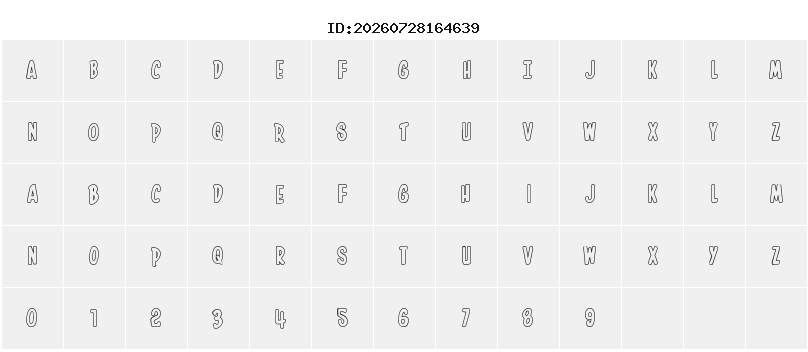
In-House Edition Outline Preview
• Font Name: In-House Edition Outline
• Full Font Name: In-House Edition Outline
About In-House Edition Outline.ttf
In-House Edition Outline.ttf is a modern, elegant sans-serif font designed for ultimate readability and visual harmony. Perfect for branding, headlines, web design, and print materials.